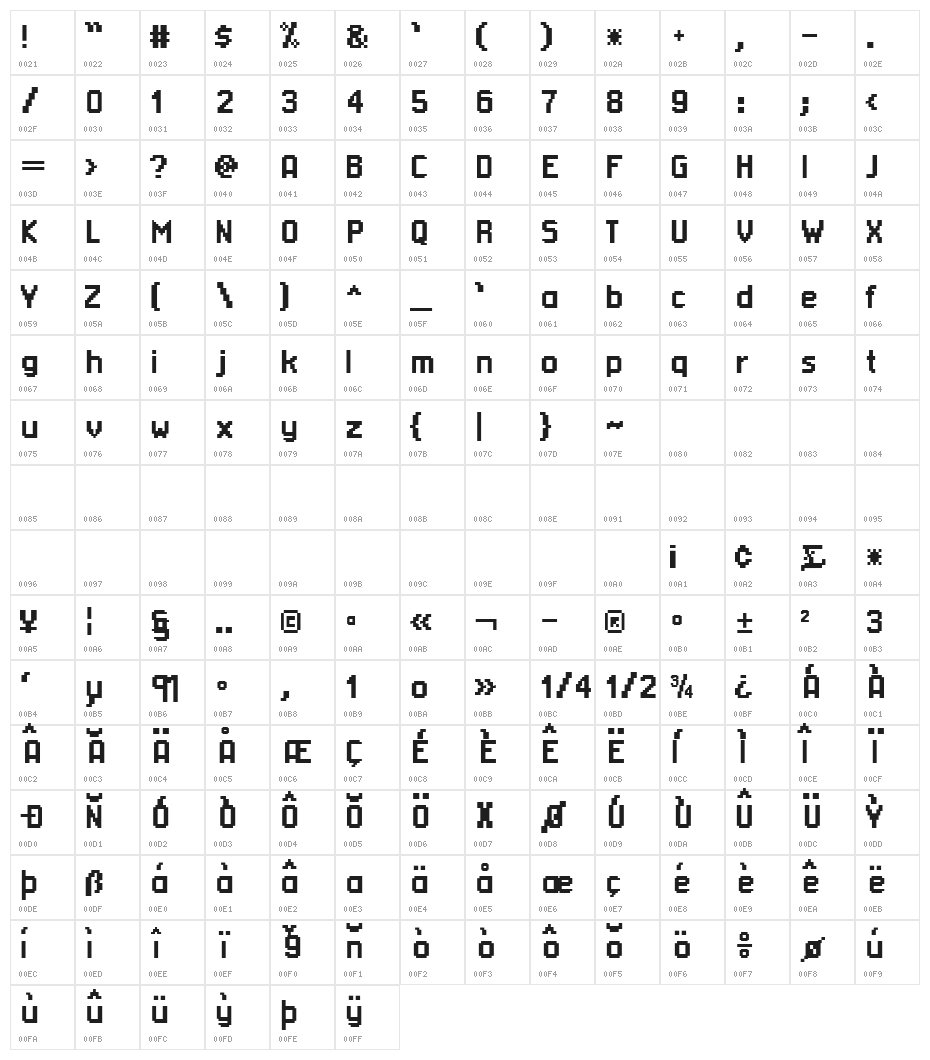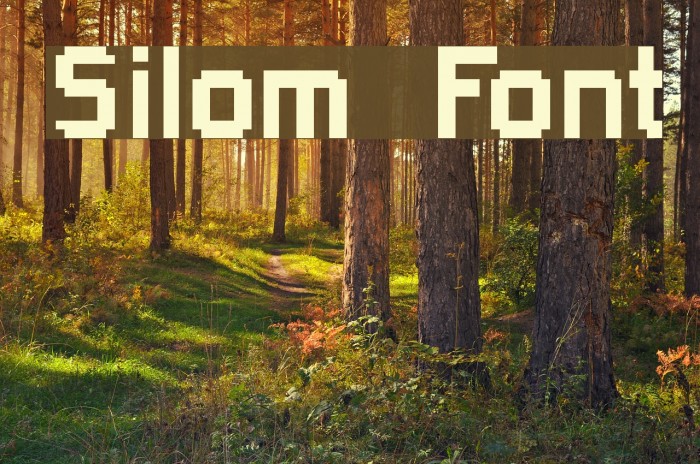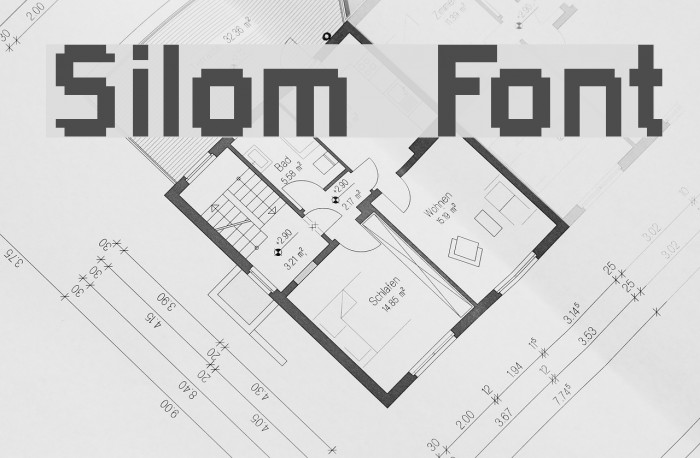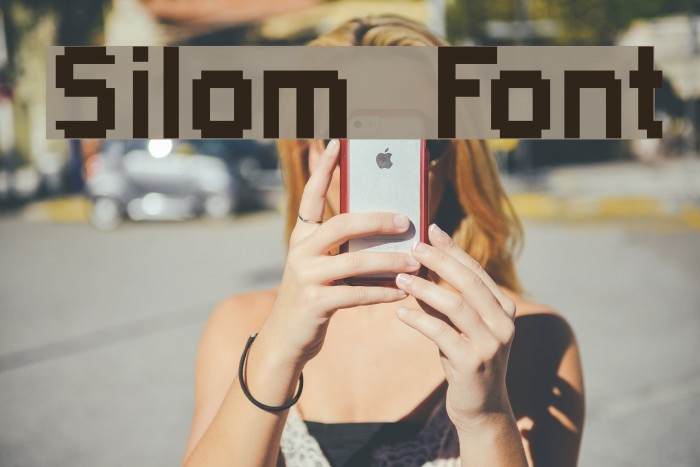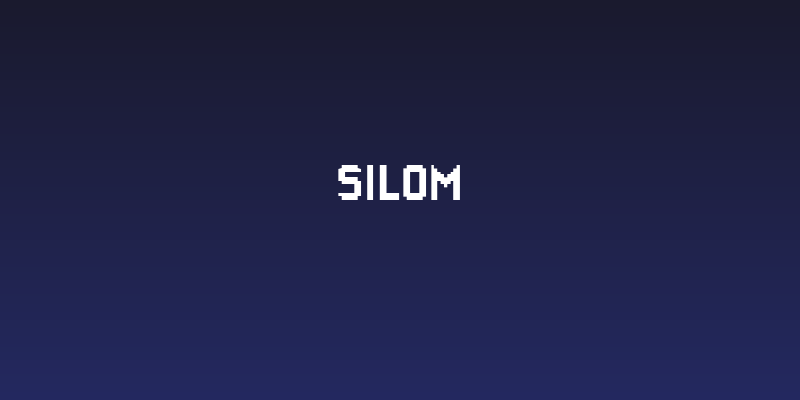
Silom Font
Silom Description
This font features a distinct pixelated design reminiscent of early digital displays and video games. Each character is constructed with a blocky, grid-like structure, giving it a retro, digital aesthetic. The uppercase and lowercase letters maintain a consistent height and width, emphasizing uniformity and readability. Numbers and special characters follow the same pixelated style, ensuring a cohesive look across all text elements. The font's simplicity and geometric form make it ideal for projects that aim to evoke nostalgia or a tech-inspired theme. Its bold appearance ensures visibility and impact, making it suitable for headlines or display purposes.
| Use Case | Headlines, Logos, Display text |
| Proposed Projects | Ideal for retro video games, tech-themed designs, digital art projects, and nostalgic branding. |